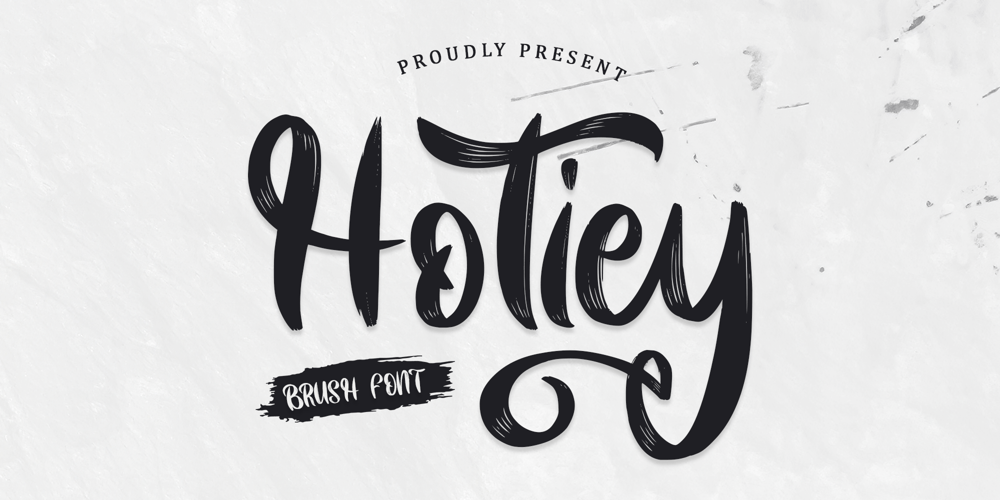
Hotiey Font Family was designed by Alif Ryan Zulfikar and published by Sakha Design. Hotiey contains 1 styles and family package options. Experience the charm of our handwritten brush font, offering a unique blend of spontaneity and style. Ideal for projects, invitations, and artistic designs, this font captures the essence of hand-drawn lettering with its fluid, dynamic strokes and bringing an authentic